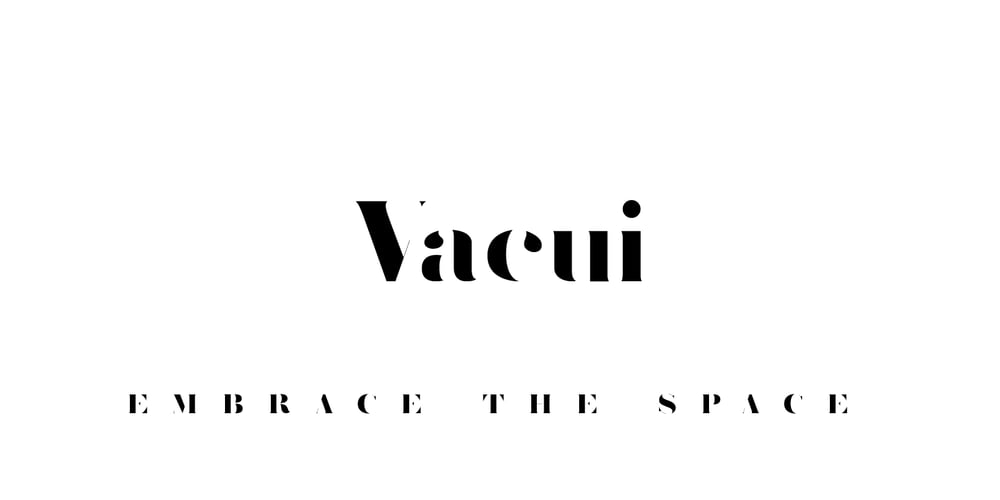
Vacui
Vacui font
Vacui Font Family was designed by Alessio Agnello and published by Alessio Agnello. Vacui contains 2 styles and family package options. VacuiInspired by the Latin phrase “Horror Vacui”, translating to “fear of empty space”, the Vacui typeface ironically portrays the meaning from a different perspective. Originally intended to fill an entire surface, this typeface playfully illustrates an alternate reality, embracing space in a new minimal form. The modern aesthetic utilises white space to suggest the shapes and curves of letters that we are familiar with, connecting the dots on a subconscious level while introducing new breathing room to the flow of characters and phrases.